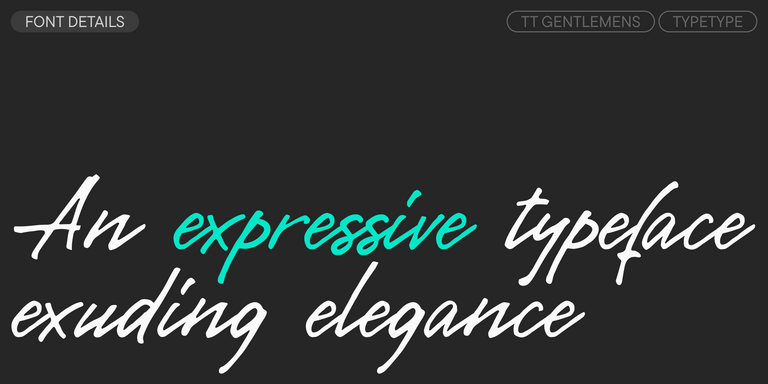
TT Qurdisma is a narrow and dense decorative font reminiscent of a whimsical plant. The winding, smooth contours give rise to a botanical ornament.
TT Dott is an experimental pixel grotesque where a circle is used as the base for the pixel. It is a fluid and unusual display font, evoking associations with embroidery and techno parties all at once.
TT FRANTZ IS AN EXPERIMENTAL VARIABLE FONT, DISTINGUISHED BY ITS SLIMNESS AND LIGHTNESS. THE VARIATION IN THE FONT AFFECTS THE CHANGE IN THE HEIGHT OF THE MEAN LINE—BY MOVING THE AXIS ADJUSTMENT SLIDER YOU CAN EASILY RAISE OR LOWER THE MEAN LINE OF THE FONT.
TT Moons is a slim and contrast serif. This font family works especially smart in classic design themes. TT Moons is a typeface of the glyptal modern typeface.
TT Disruptors is a ductile marker-drawn handwritten typeface. Its design is one-of-a-kind: worn edges, varying stroke thickness, and elongated ascenders and descenders give it a lively, dynamic texture and handcrafted feel. The personality of this font is spirited and emotional, yet warm and soulful.
TT Gentlemens is a dynamic handwritten typeface that combines the seriousness and precision in writing with elegance and sophistication. It has the character and style of a true gentleman: restrained and always appropriate, yet confident and striking.
TT Norms® Pro is a typographic legend embraced by world-renowned brands. Evolved through multiple iterations, it has conquered MyFonts and redefined typographic versatility. A design workhorse that transforms from a humble tool to an essential creative companion.
TT Commons™ Pro is the studio’s typographic powerhouse. A font so versatile it defies categorization, seamlessly bridging style and function. For designers seeking a universal foundation that elevates every project, this is the definitive choice.
TT Hoves Pro is a Scandinavian sans serif that whispers minimalist elegance. Simultaneously understated and distinctive, it’s a designer’s secret weapon that transforms complex challenges into visual poetry with effortless precision.
TT Supermolot Neue is a game-changer in visual communication! An advanced, modular sans serif that captures the pulse of technological innovation, bringing electrifying vision to everything from immersive game interfaces to bold visual narratives.
TT Firs Neue is a balanced sans serif infused with Scandinavian design philosophy. Elegant and versatile, polished through two deliberate revisions to achieve typographic perfection.
TT Rounds Neue is a soft and friendly font that knows how to be different. In lighter font styles it looks minimalist and neutral. The bold font styles make it puff up and achieve maximum roundness, exuding childlike charm.
TT Fors is a design Swiss Army knife of typography. This geometric sans serif delivers pure versatility through clean, refined proportions. It can be used for defining interfaces or crafting visual accents.
TT Ramillas is a stylish and contemporary serif that elevates design to an art form. Characterized by its unique decorative styles and initials with a floral ornament, it crafts visual experiences that are truly one-of-a-kind. Already adorning over 3000 websites globally, it’s a Modern Cyrillic award-winner that redefines typographic sophistication.
The TT Tsars font family is a collection of serif display fonts that are stylized to resemble the fonts of the beginning, the middle, and the end of the XVIII century.
TT Backwards Sans is a narrow grotesque, which takes us back to the book design of late 70s and early 80s with its ductile characters.
When designing TT Mussels, we paid great attention to the possibility of imposing large arrays of text, and we can state that TT Mussels is a rare type of technological text fonts.